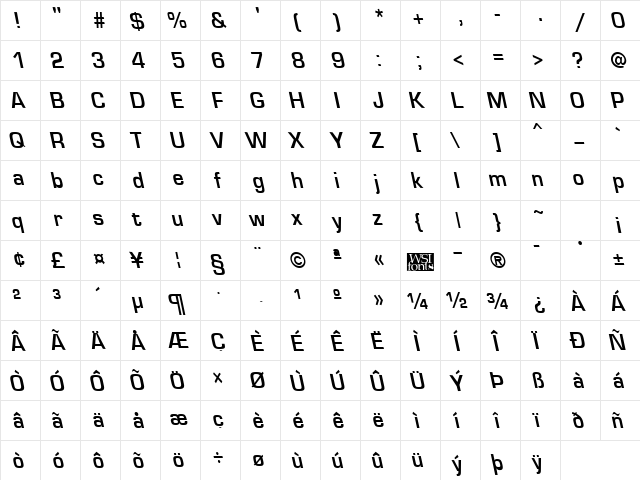
EuroseCondBackslant Bold
Design Context for EuroseCondBackslant Typeface
EuroseCondBackslant takes a measured approach to typography — its balanced proportions and neutral character make it a reliable workhorse for both digital and print work. Its bold stroke weight gives it real presence on the page. Its narrow stance lets it pack a punch even in space-constrained designs.
Pro Tip: Pair EuroseCondBackslant with a font of contrasting weight or personality to build a more expressive typographic hierarchy.